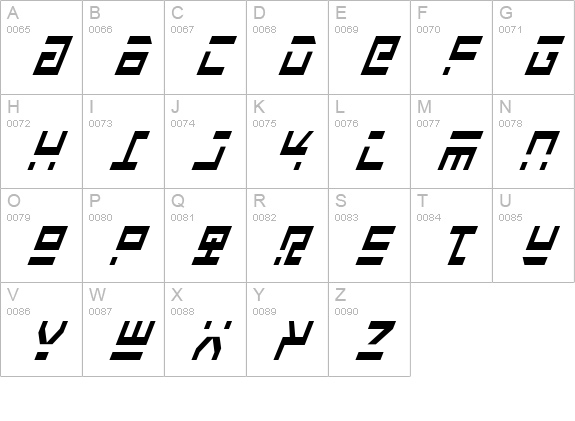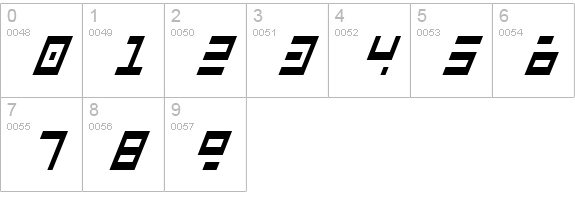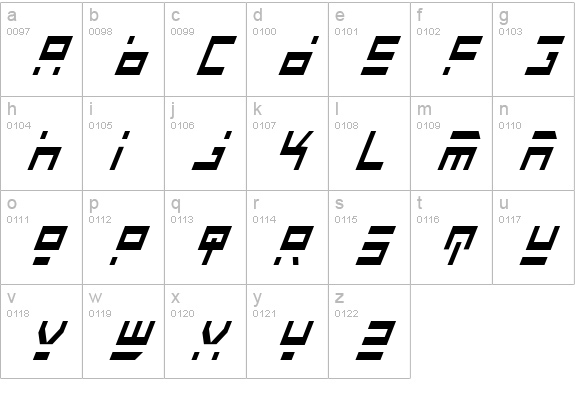
Rocket Type Cond Italic is a distinctive, condensed-width, italic variant in the Rocket typeface family \xE2\x80\x94 well suited to design and typography projects.
Rocket Type Cond Italic is a sleek and modern font that exudes sophistication and style. With its unique italicized design, this typeface adds a touch of elegance to any project or design. The slanted angles and condensed letterforms create a sense of movement and dynamism, making it perfect for conveying a sense of speed and energy. This font is not only visually striking but also highly versatile, suitable for a wide range of design applications including branding, advertising, packaging, and more. Whether you're looking to create a sleek logo or eye-catching headlines, Rocket Type Cond Italic is sure to make your text stand out. Best of all, Rocket Type Cond Italic is available for free download at FontsMarket.com. So you can easily add this unique and stylish font to your collection without breaking the bank. Don't miss out on this opportunity to elevate your designs with the bold and contemporary look of Rocket Type Cond Italic.